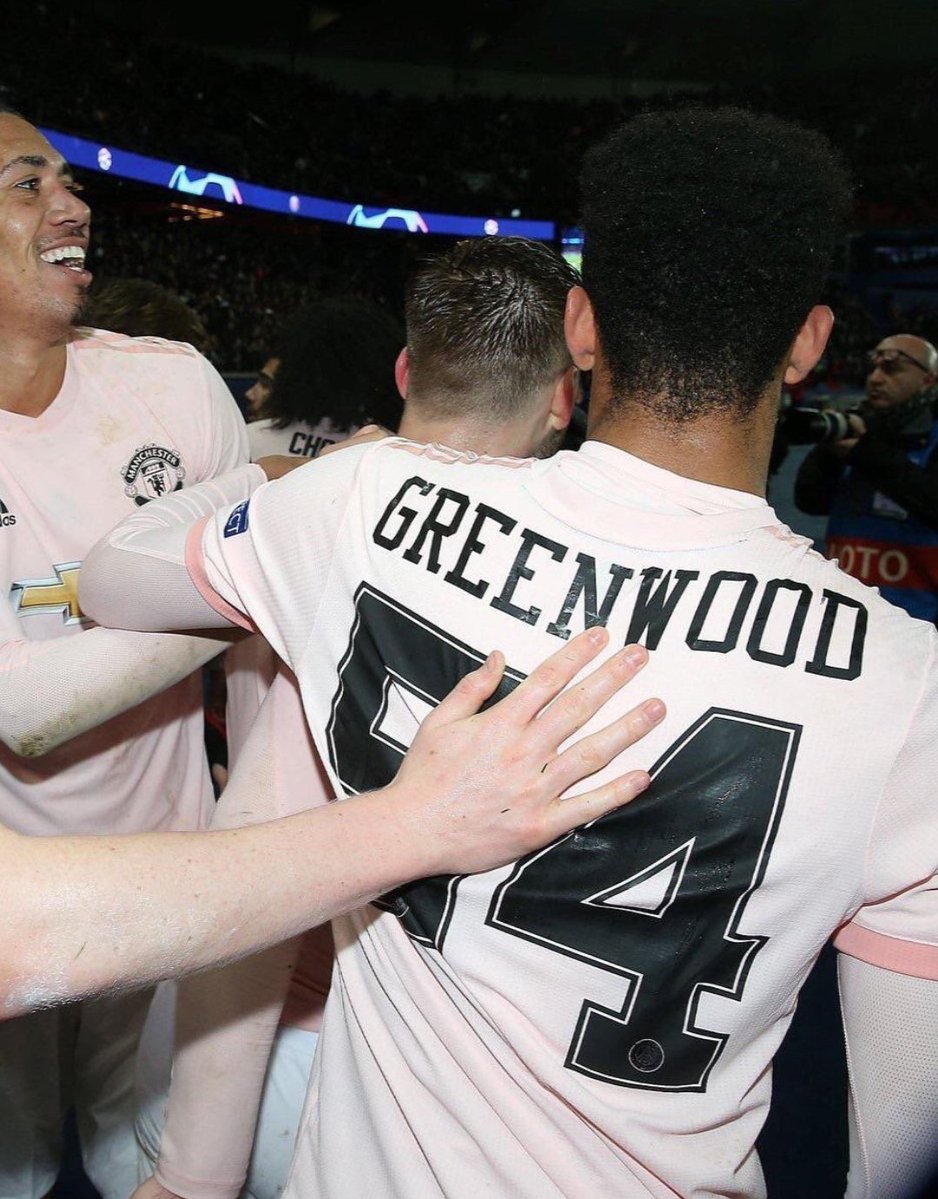
CRAZY: Man United Uses PSG Font For Youngster Against PSG
Manchester United made an incredible comeback in the UEFA Champions League away against PSG this week. Now yesterday it has emerged that young Manchester United player Mason Greenwood used PSG's kit number style against PSG. Thanks to @Kurillos.
In the last minutes of the match, Man Utd Ole coach Gunnar Solskjær called subbed on 17-years old Mason Greenwood. It was Greenwood's first team debut for Manchester United (he previously only played for Man Utd's youth teams). However, Man Utd did not prepare a kit for him in Manchester and so he played the match with the same font style as the Paris Saint-Germain players.
The flocking would have been done only 2 hours before the start of the match (again according to @Kurillos).
Greenwood's font is quite easily to recognize as PSG font - it features the PSG logo on the bottom. The PSG 19-20 Jordan Champions League font is inspired by the 1998 Chicago Bulls jerseys.